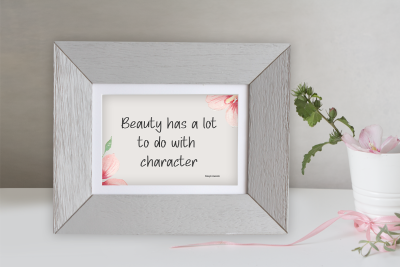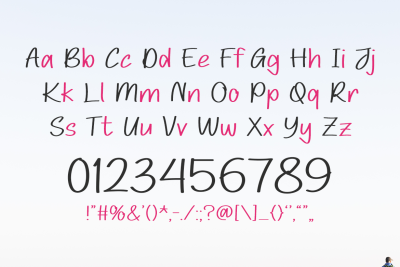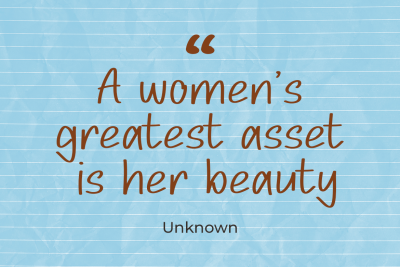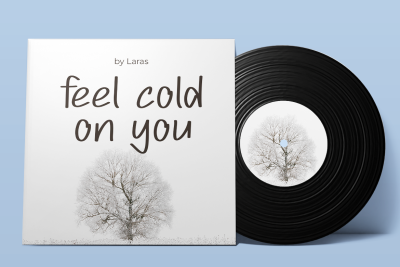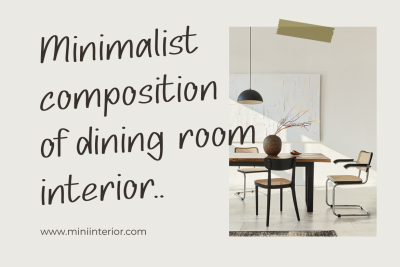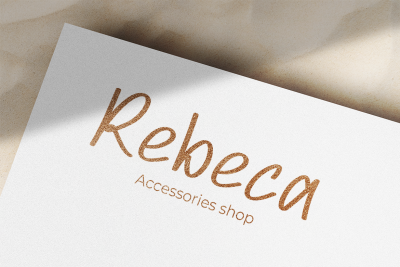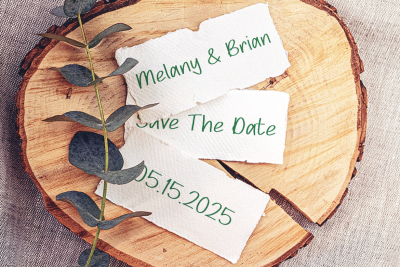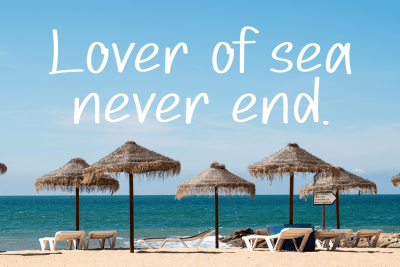
handwriting font geulis
Geulis
Handwriting font Geulis is a stylish and modern script typeface designed to bring elegance and natural beauty to any design. With its fluid strokes and slightly playful yet sophisticated letterforms, this font captures the authenticity of handwritten text while maintaining a clean and professional look. Moreover, its soft curves and well-balanced design make it perfect for projects that need a refined yet approachable aesthetic.
Additionally, Geulis stands out with its effortless flow, ensuring both readability and charm. The organic, hand-drawn strokes add warmth and personality to every design, making it ideal for branding, invitations, and social media content. Whether you’re creating an elegant logo, crafting beautiful stationery, or designing a heartfelt message, this font delivers an effortlessly chic and timeless feel. Furthermore, its versatility allows it to be used in both digital and print projects, ensuring a seamless and stylish presentation.
Handwriting Font Geulis Perfect For
Geulis is an excellent choice for designers, entrepreneurs, and creatives looking for a refined yet modern script font. Specifically, it works best for the following applications:
1. Branding and Logo Design: For example, use it for beauty brands, lifestyle businesses, and boutique shops. Its stylish handwritten strokes add personality and sophistication to any identity.
2. Social Media Graphics and Digital Content: Similarly, apply it to Instagram posts, Pinterest graphics, and YouTube branding. Since the font has a soft and modern aesthetic, it creates an engaging and inviting presence.
3. Wedding Invitations and Event Stationery: In particular, it is perfect for wedding invites, RSVP cards, and elegant event materials. The graceful flow adds a romantic and personalized touch.
4. Editorial and Magazine Layouts: Additionally, use it for fashion spreads, lifestyle blogs, and inspirational quotes. Because of its delicate yet confident strokes, it enhances readability while maintaining a high-end appeal.
5. Personalized Greeting Cards and Letters: Likewise, apply it to thank-you notes, birthday cards, and holiday messages. The warm, natural feel makes every message more personal and meaningful.
6. Luxury Packaging and Product Labels: Furthermore, it works well for perfume labels, skincare packaging, and artisanal product branding. The font’s fluid elegance enhances the perception of quality and exclusivity.
7. Merchandise and Apparel Designs: Finally, use it for stylish T-shirt prints, tote bags, and minimalist home decor. The balance between modernity and organic flow makes it a fantastic fit for trendy and aesthetic designs.
Overall, Handwriting font Geulis is the perfect typeface for projects that require a modern, sophisticated, and personal touch. Thanks to its smooth, natural strokes and versatile style, it enhances everything from branding to stationery. Whether you’re designing for fashion, beauty, or lifestyle projects, this font ensures a graceful and captivating presence.